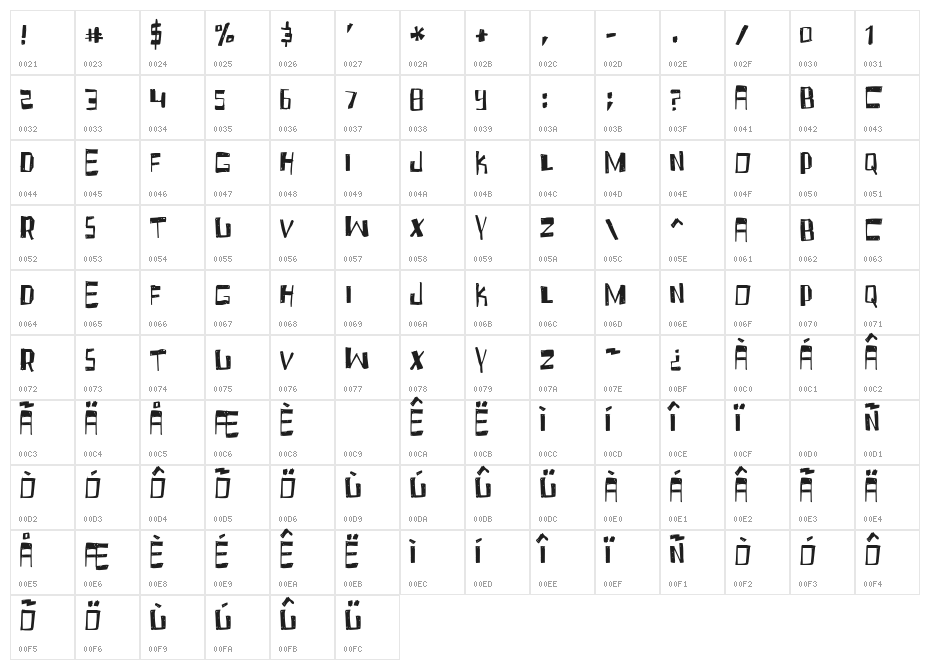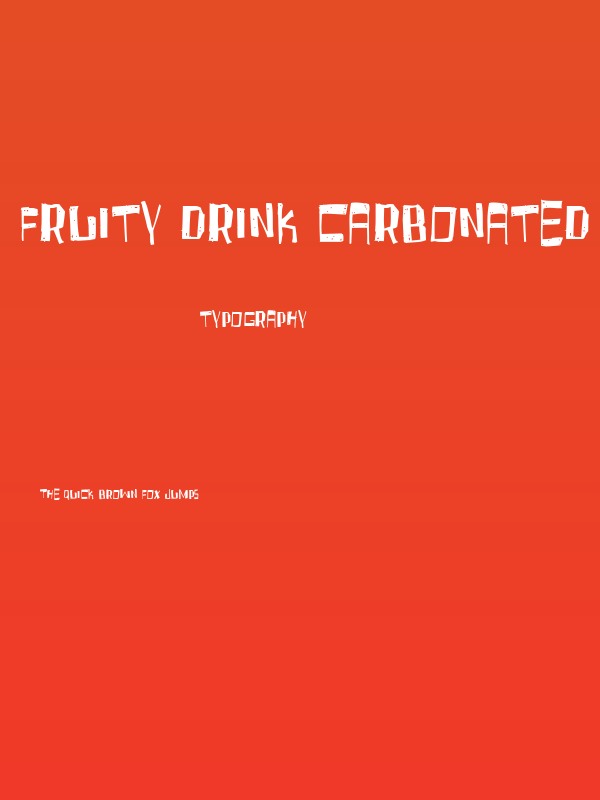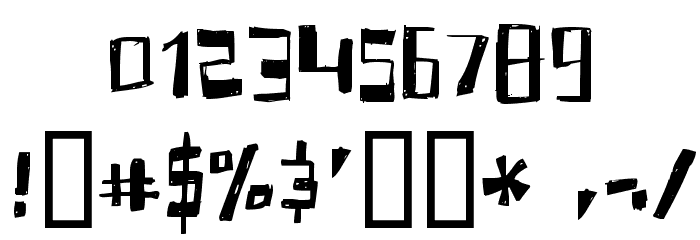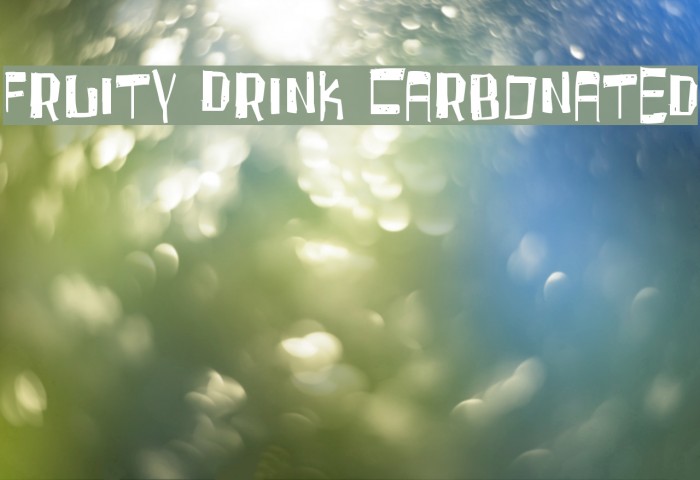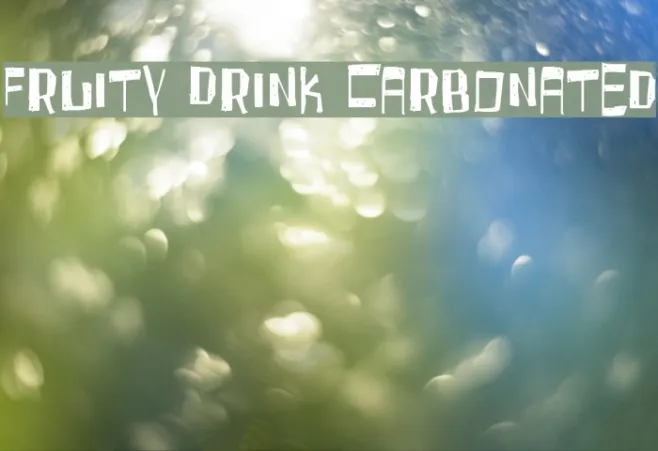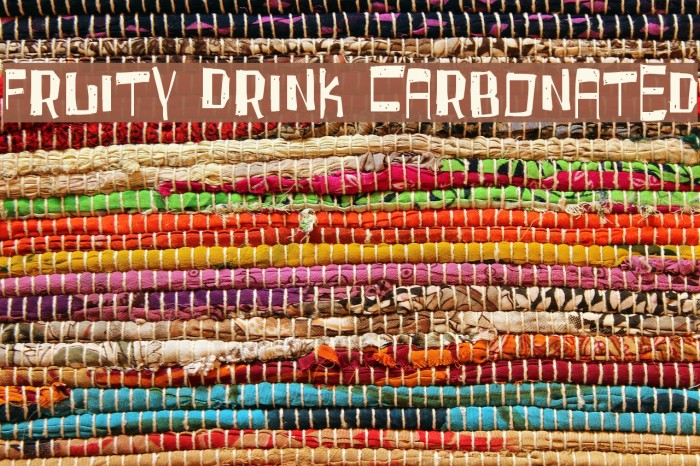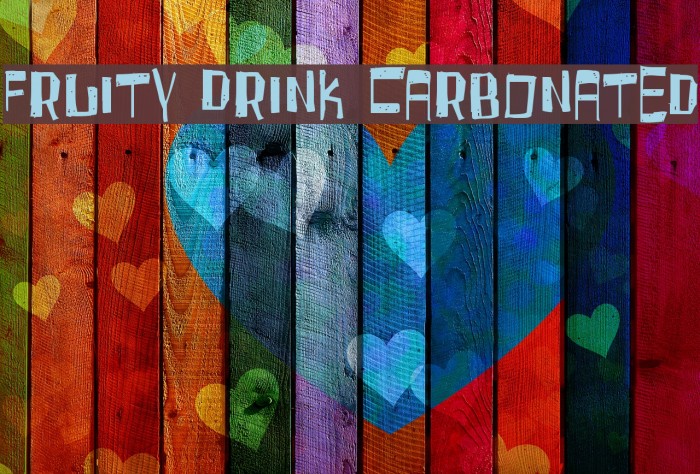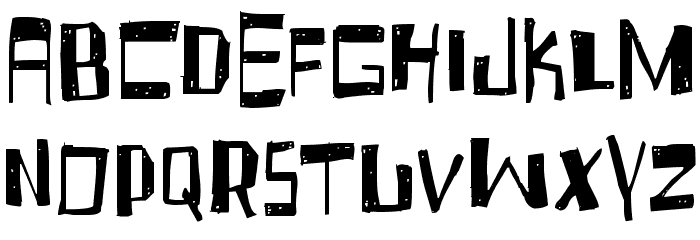
Fruity Drink Carbonated Font
| Gesamtstil | Playful, Quirky, Hand-drawn |
| Anwendungsfall | Headlines, Posters, Creative Branding |
| Vorgeschlagene Projekte | Ideal for children's books, playful posters, creative branding, and informal invitations. |